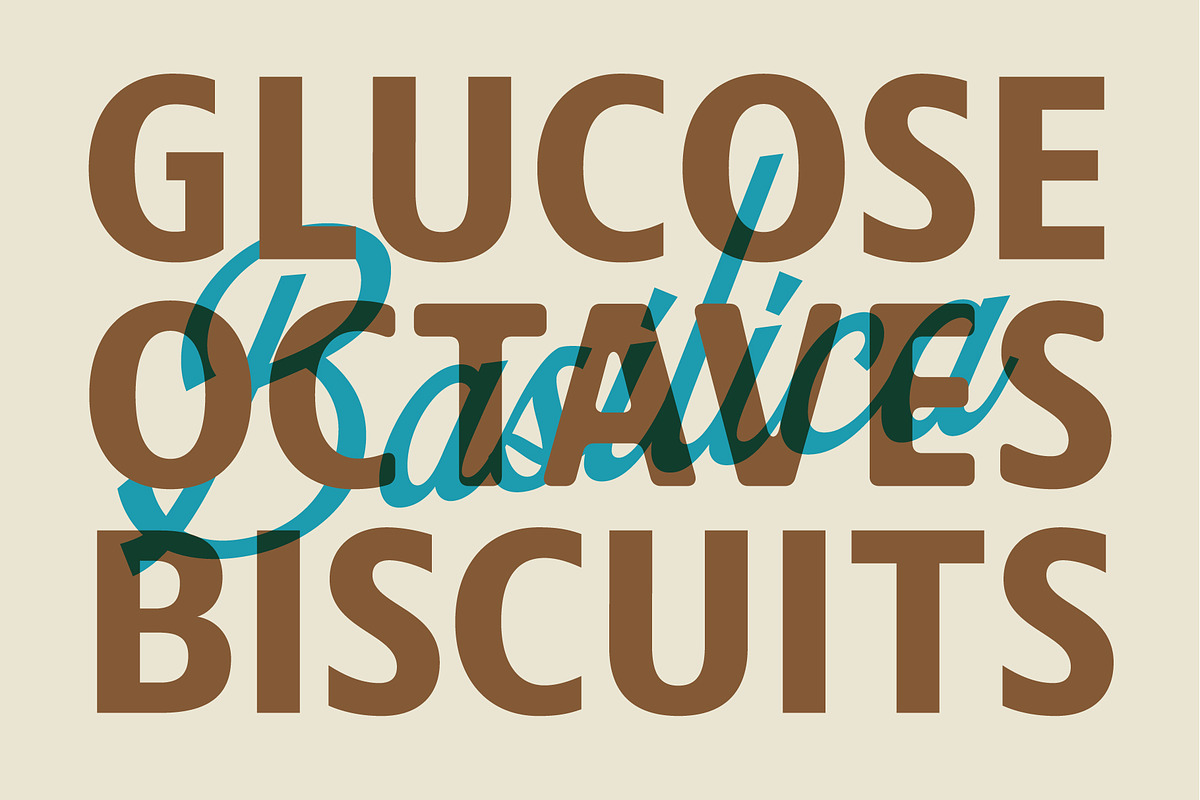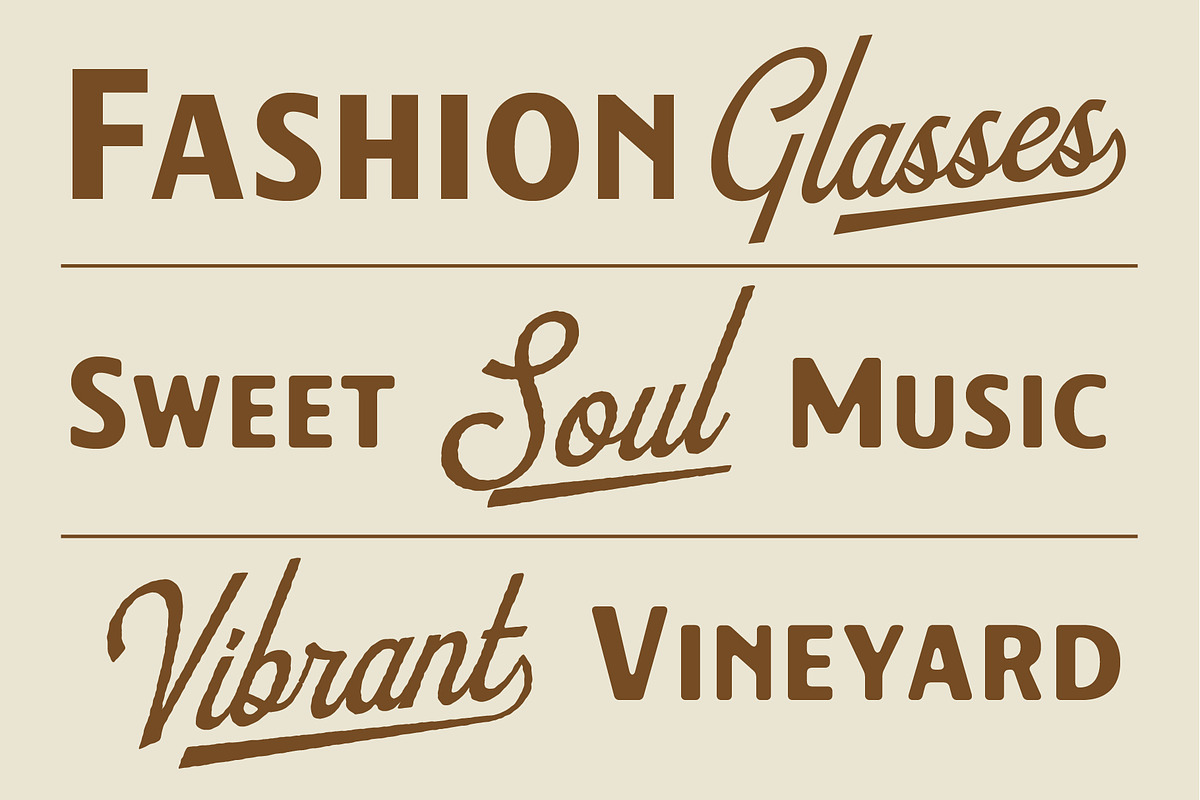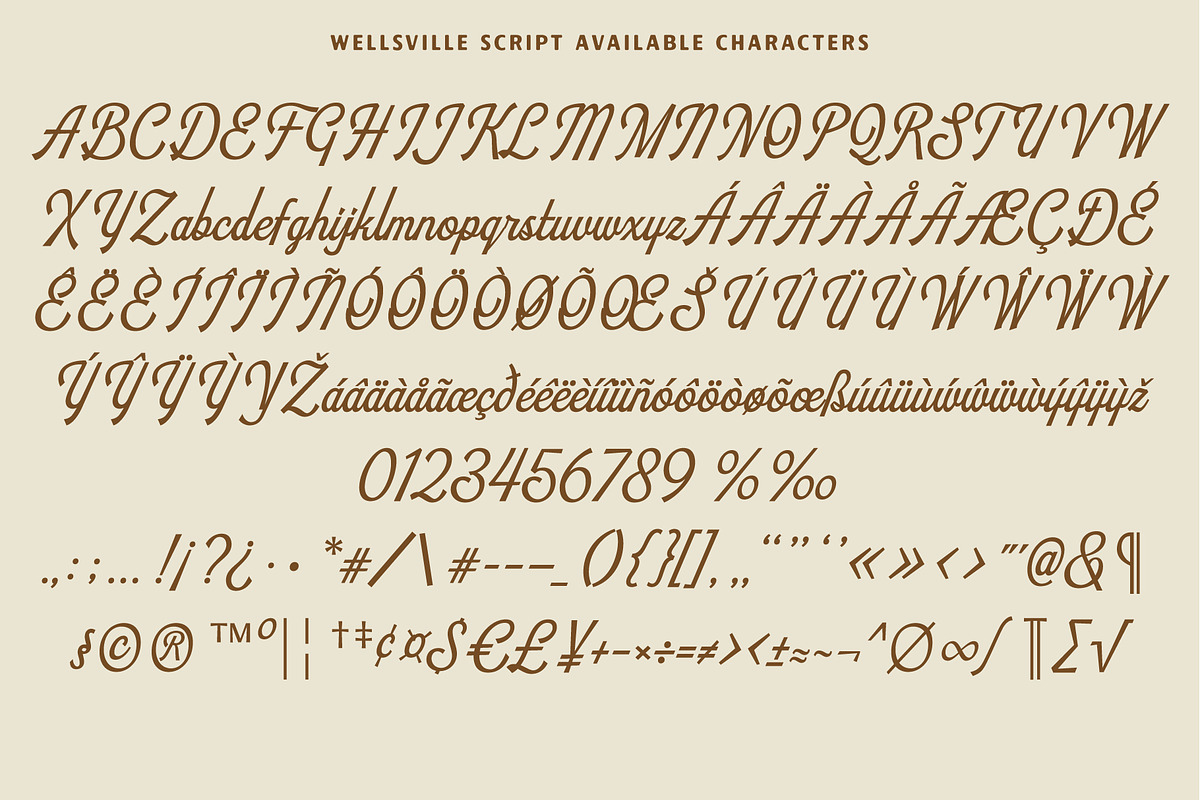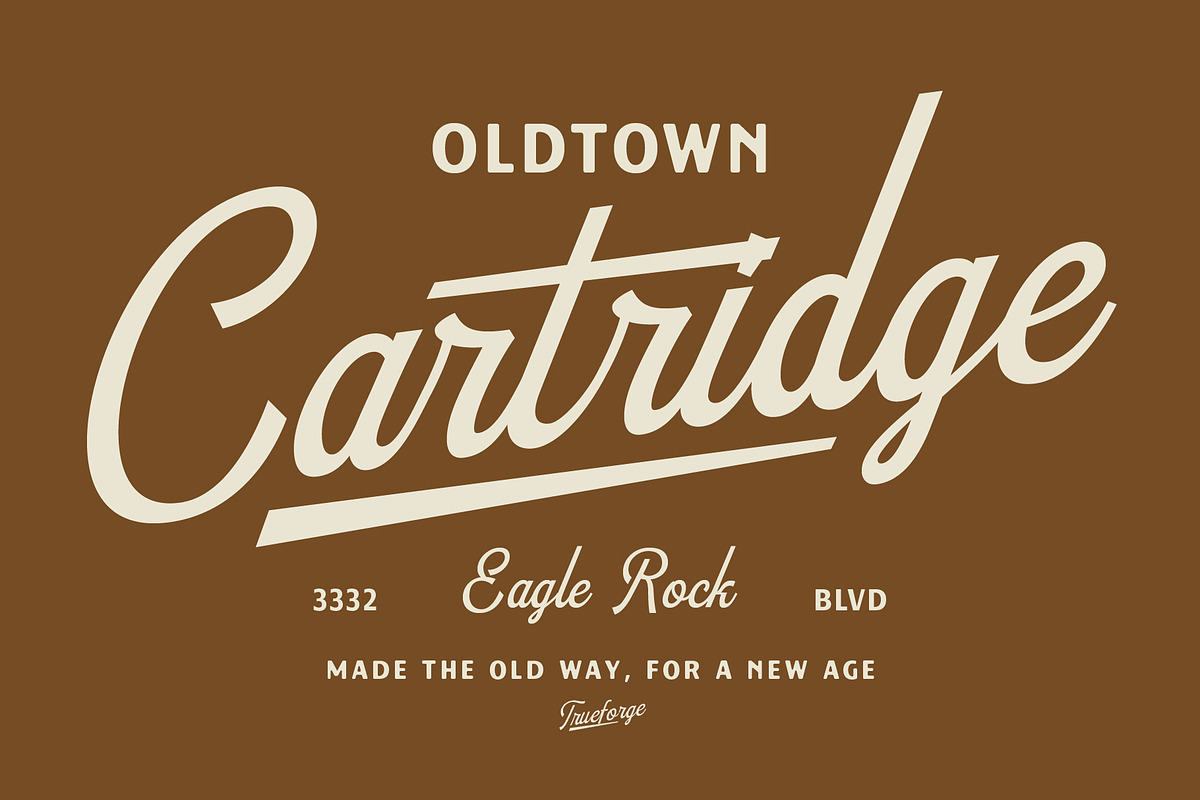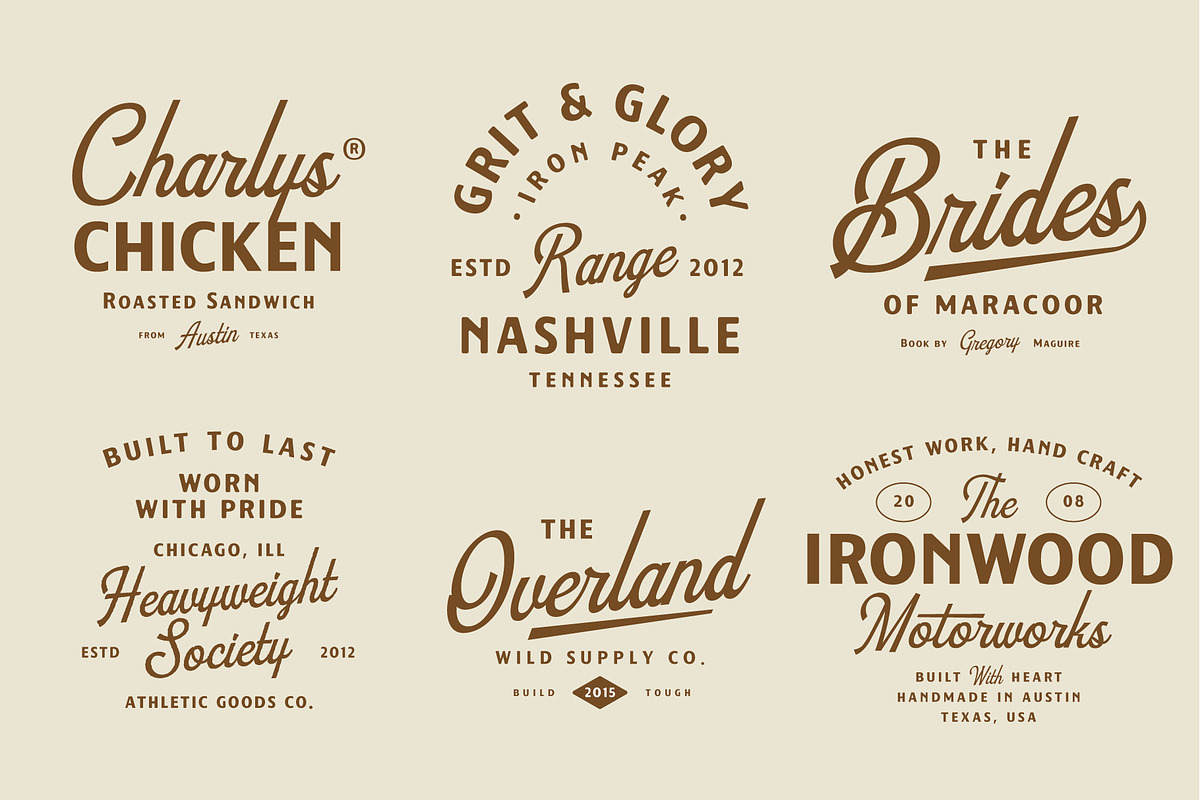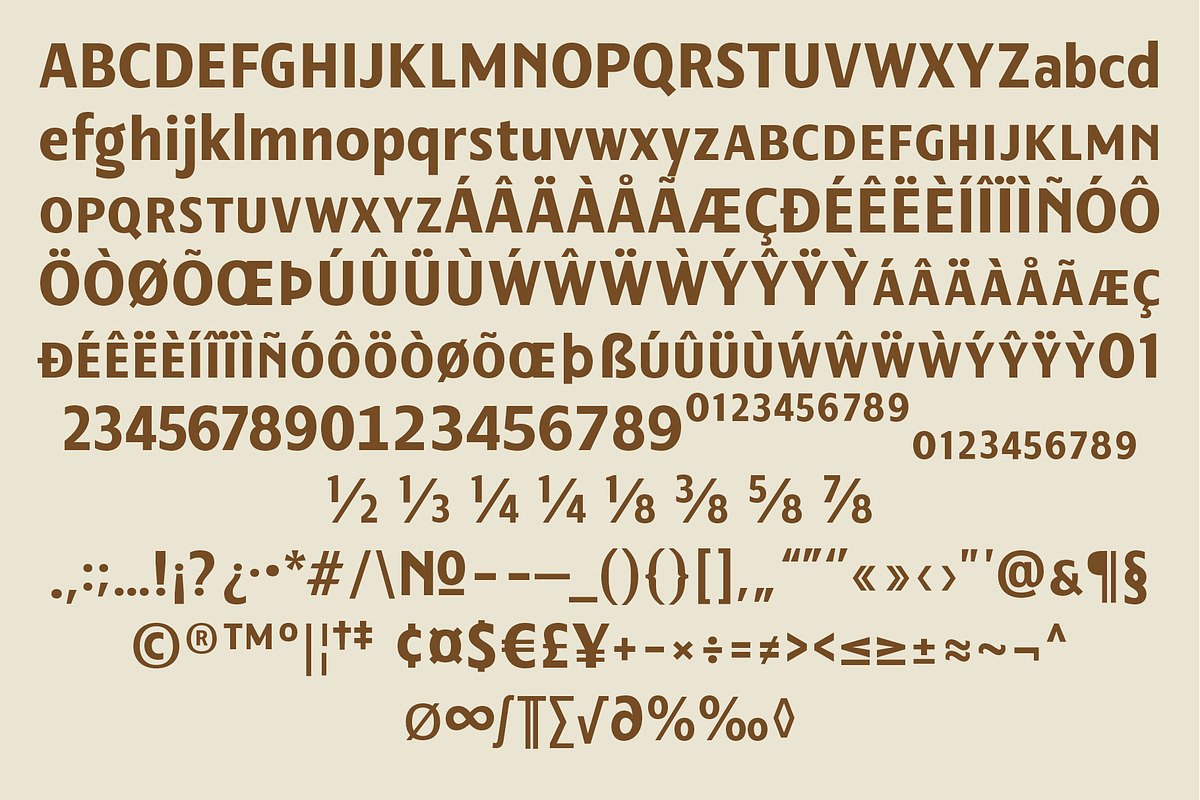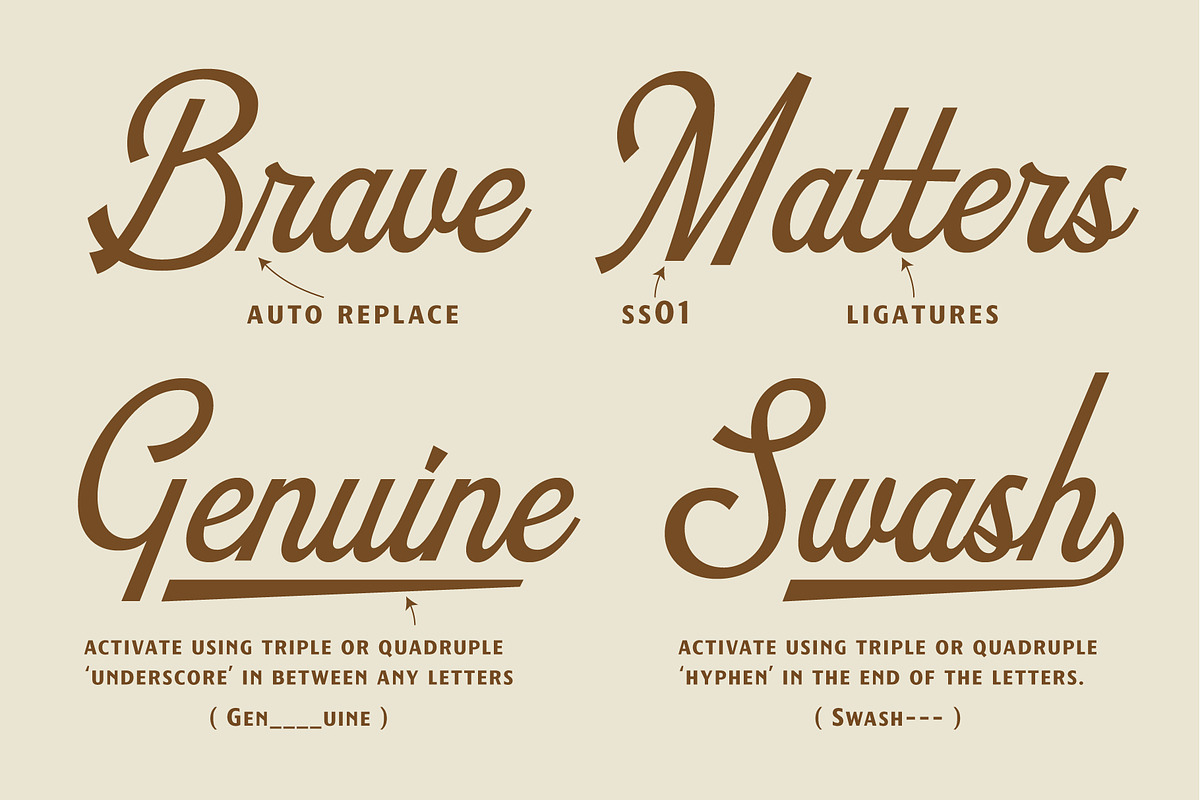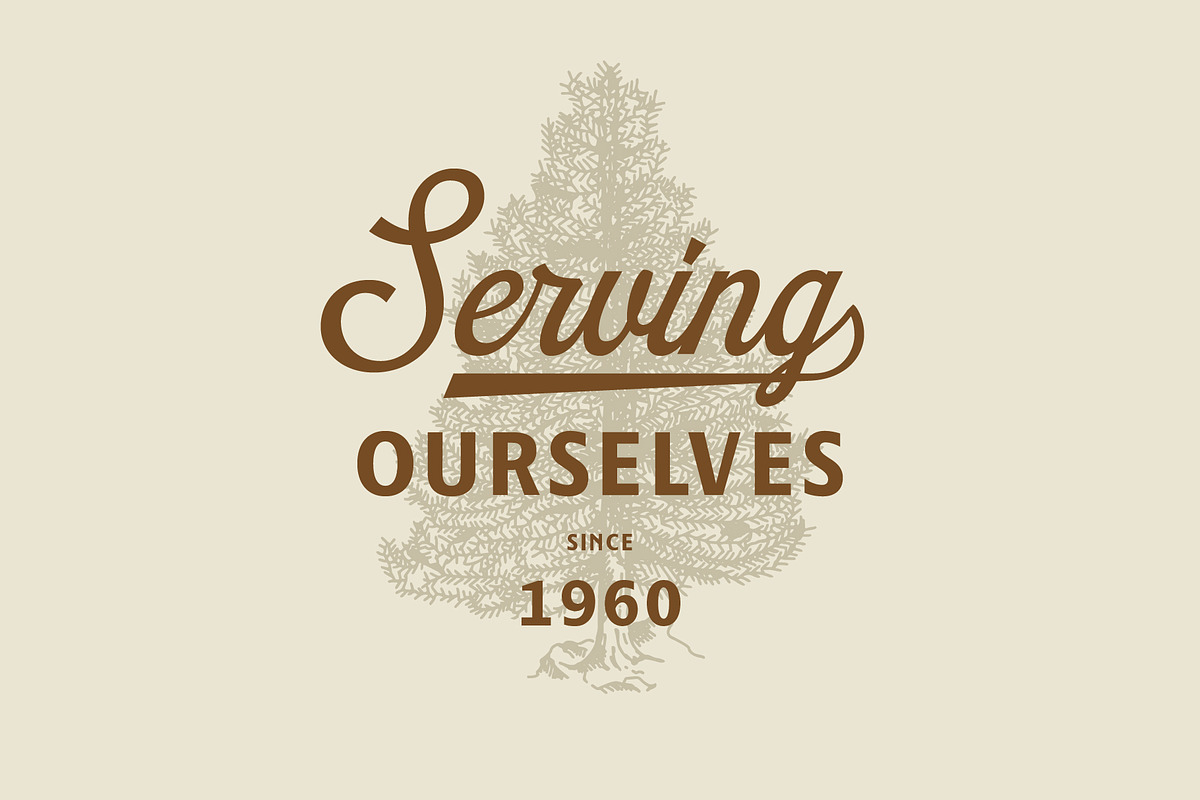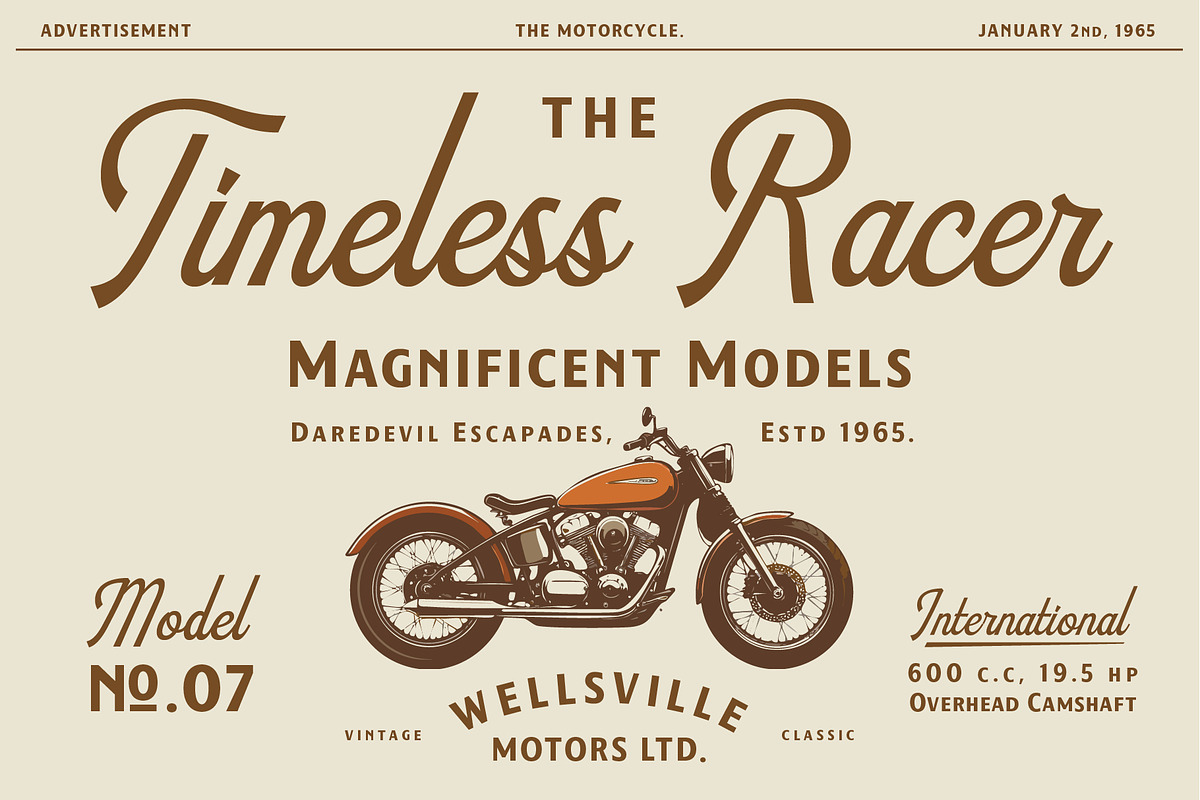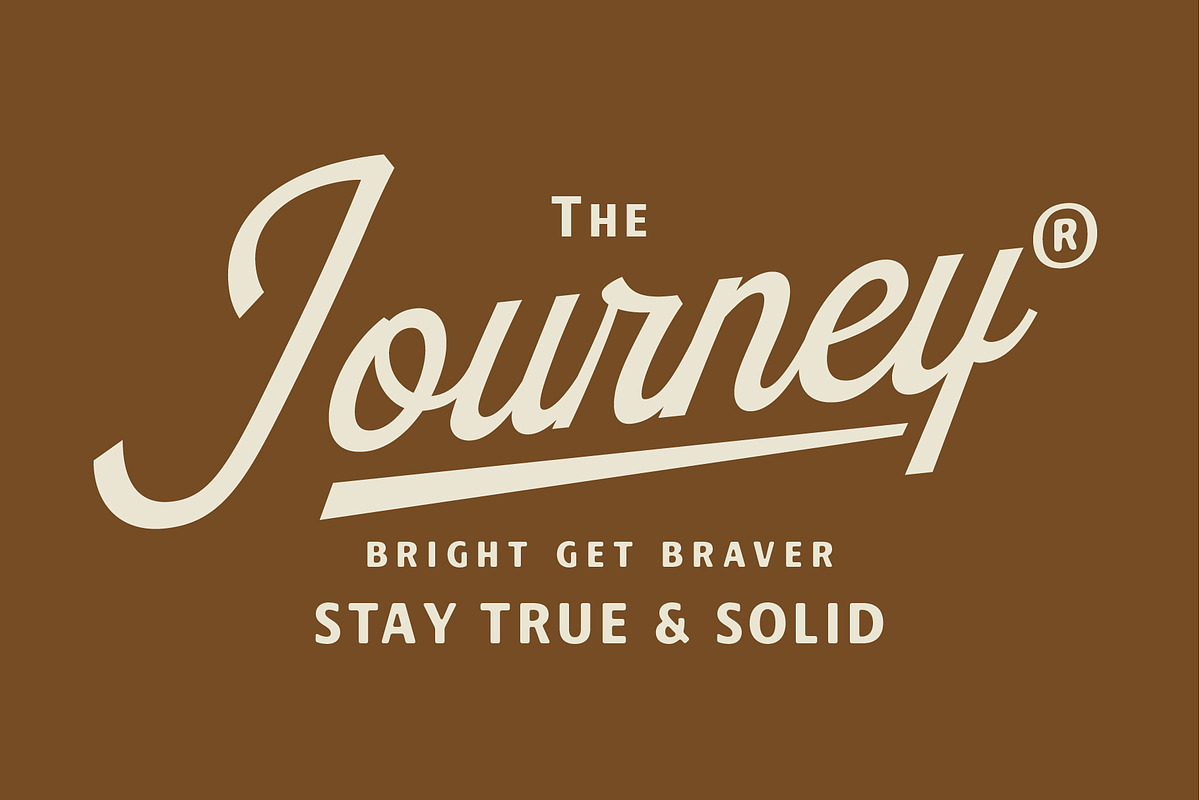
Wellsville Font Duo
Wellsville is a vintage-inspired font duo that artfully combines a smooth script with a bold sans serif, making it ideal for timeless design projects. This font is perfect for creating distinctive logos, elegant packaging, charming cafe branding, or nostalgic posters.
Wellsville captures the warmth of mid-century Americana while offering a modern polish. With its versatile styles, soft curves, and authentic texture, this font family ensures that every word feels handcrafted and brimming with character, enhancing your branding and editorial designs.
- Wellsville Script
- Wellsville Script Rough
- Wellsville Sans
- Wellsville Sans Soft